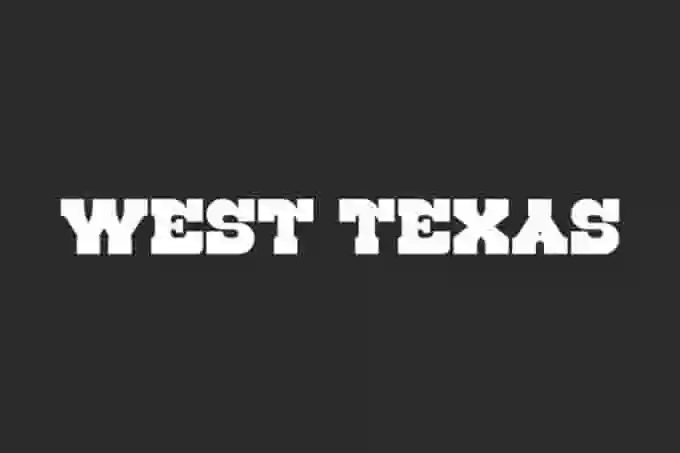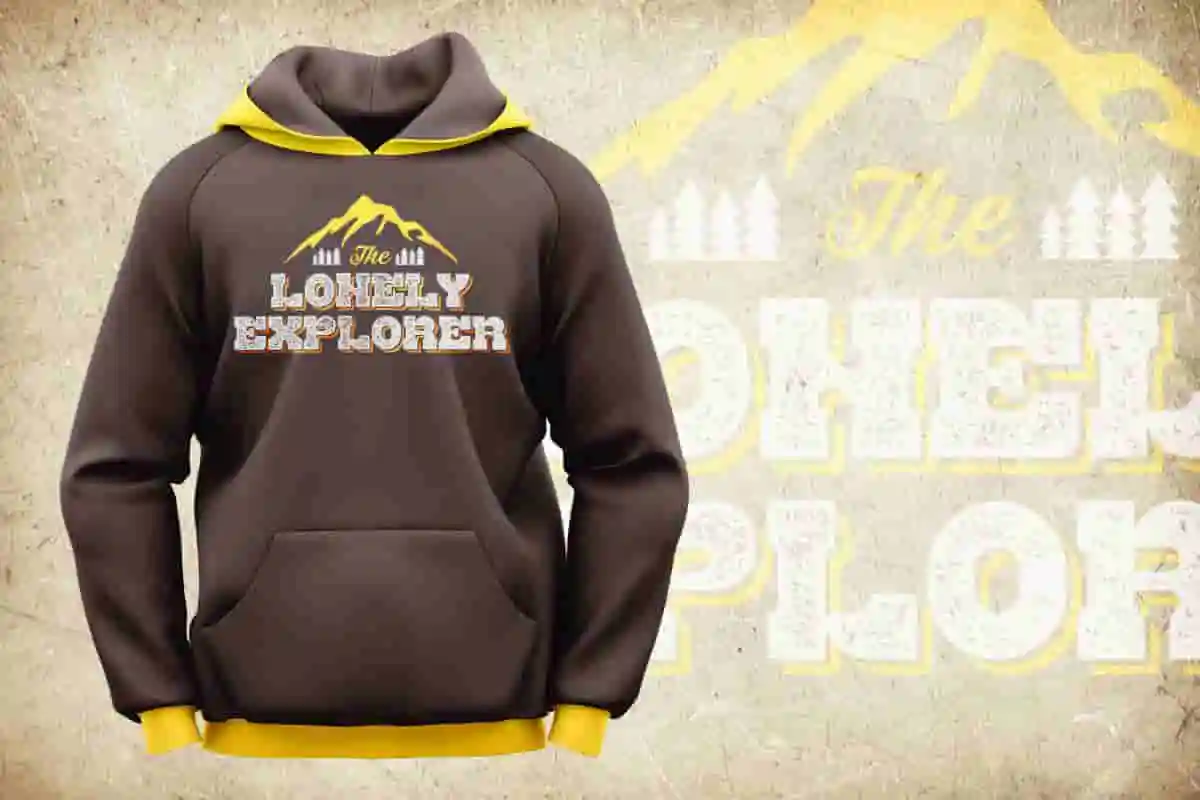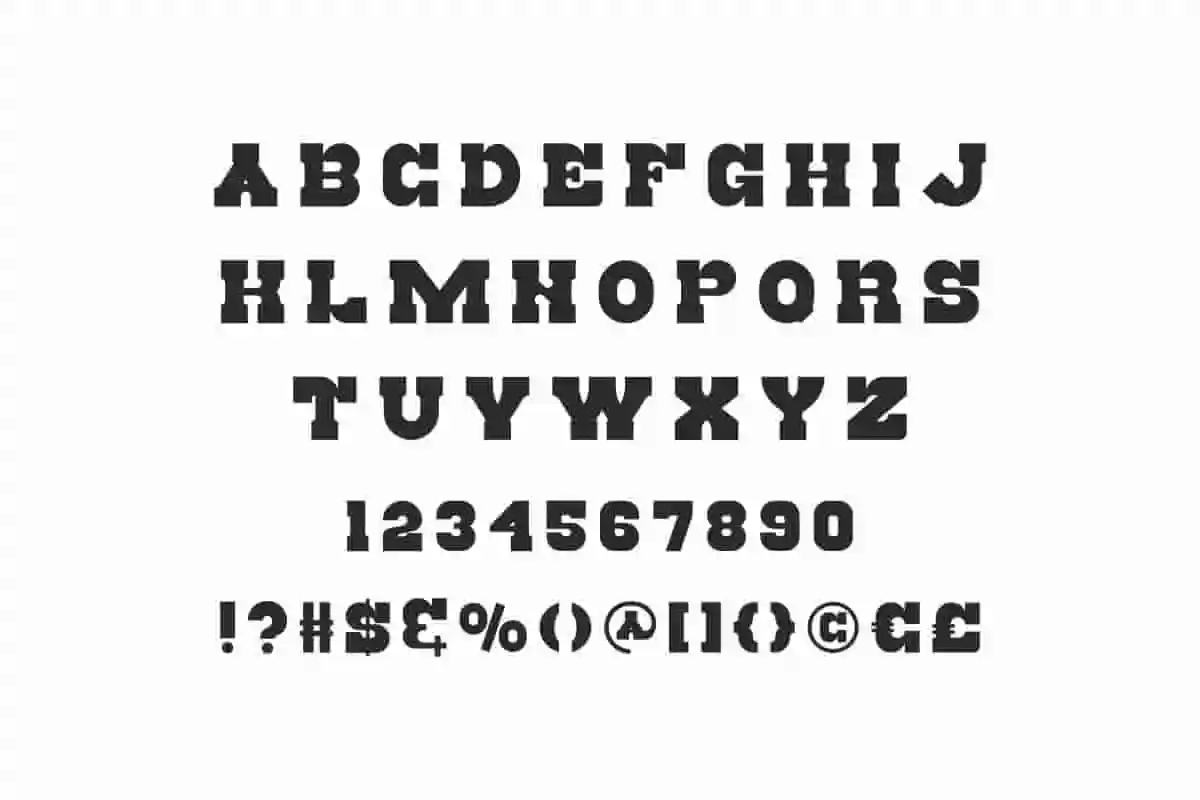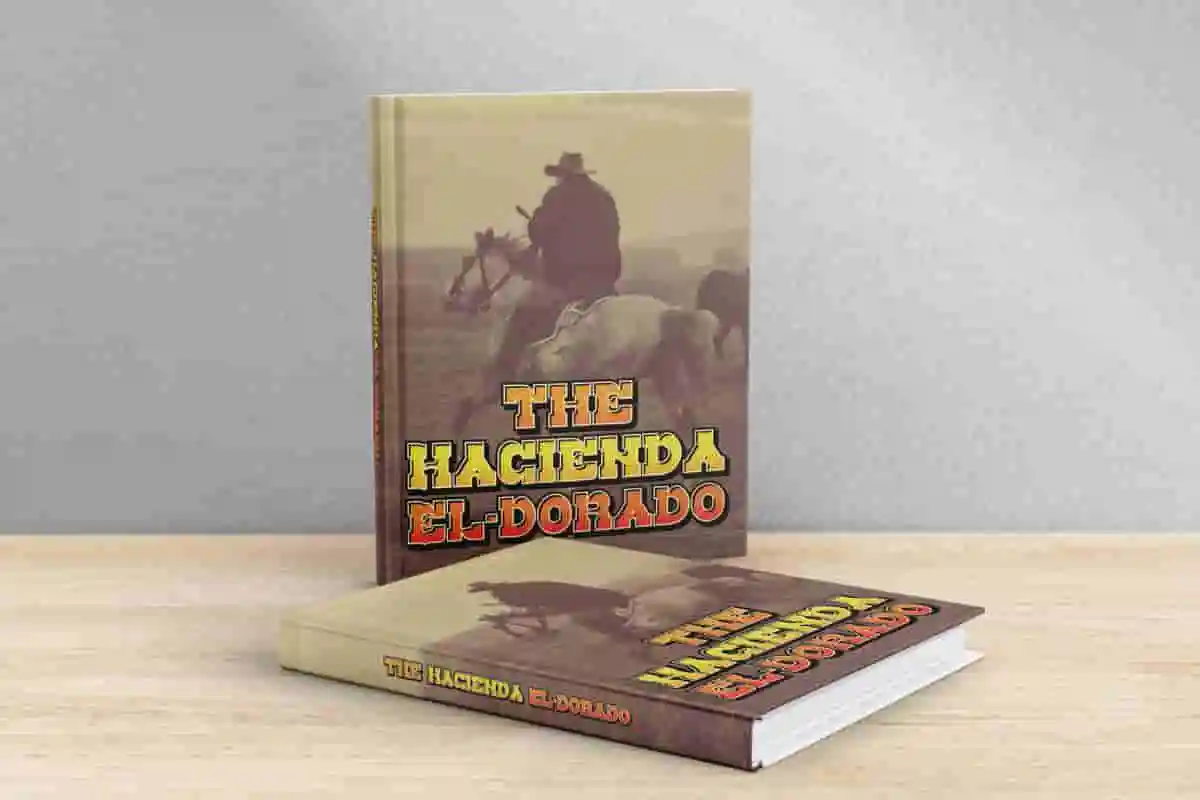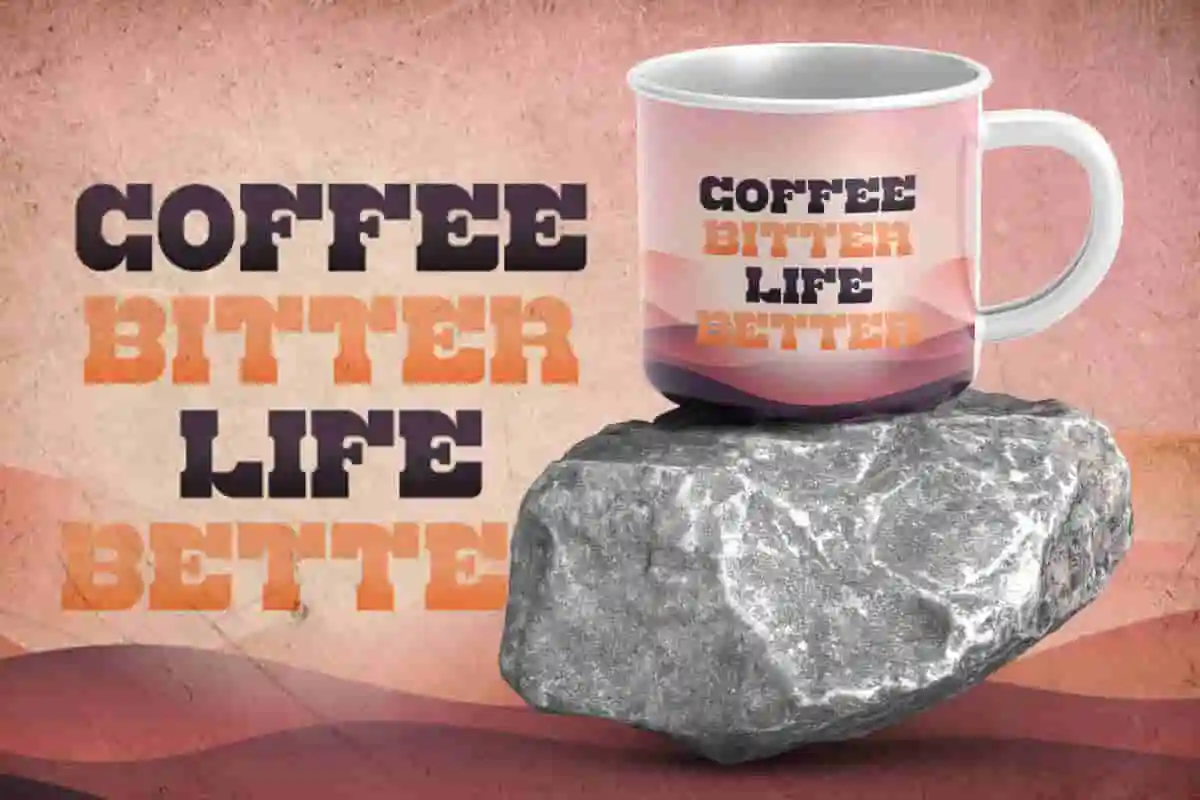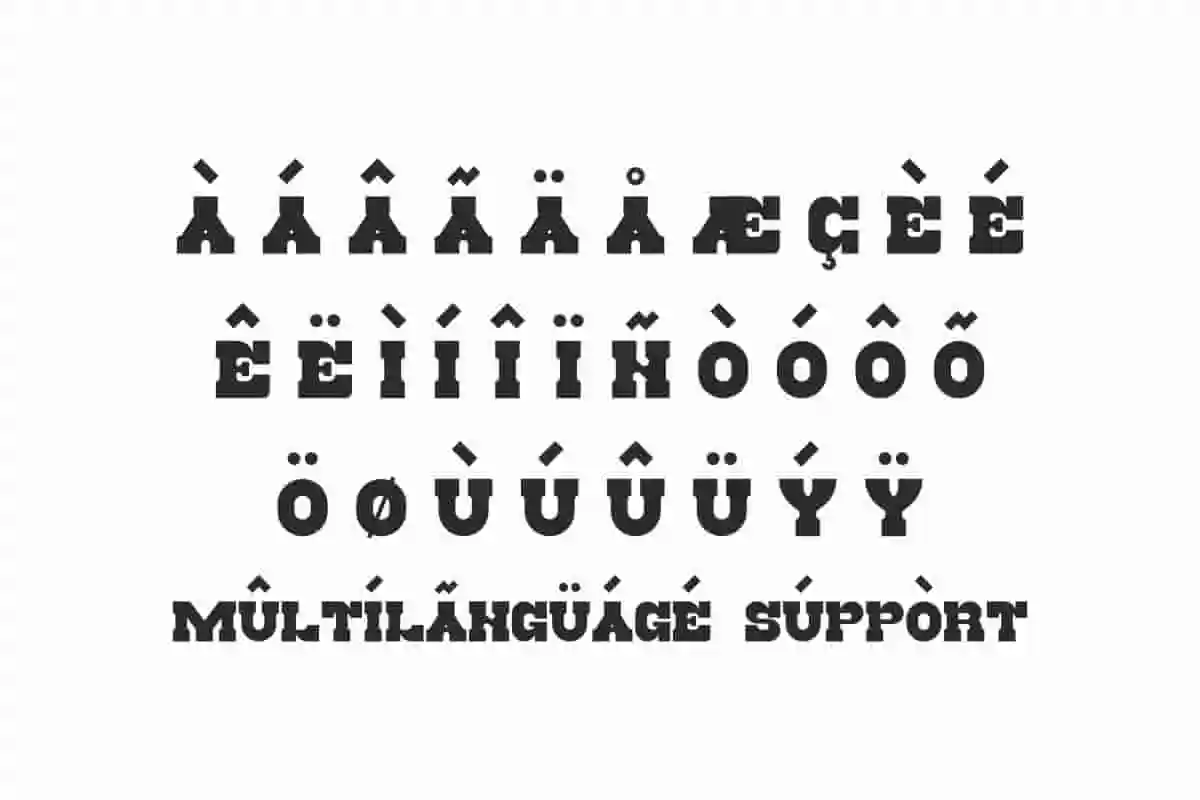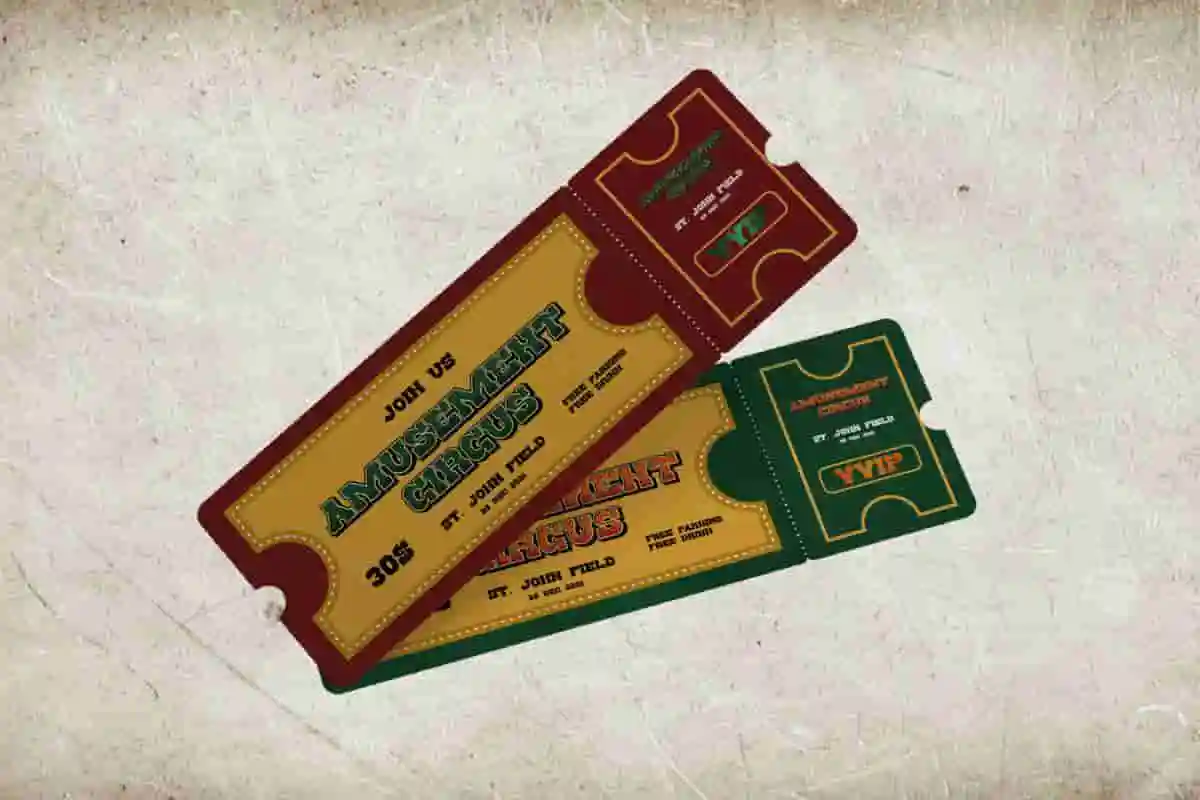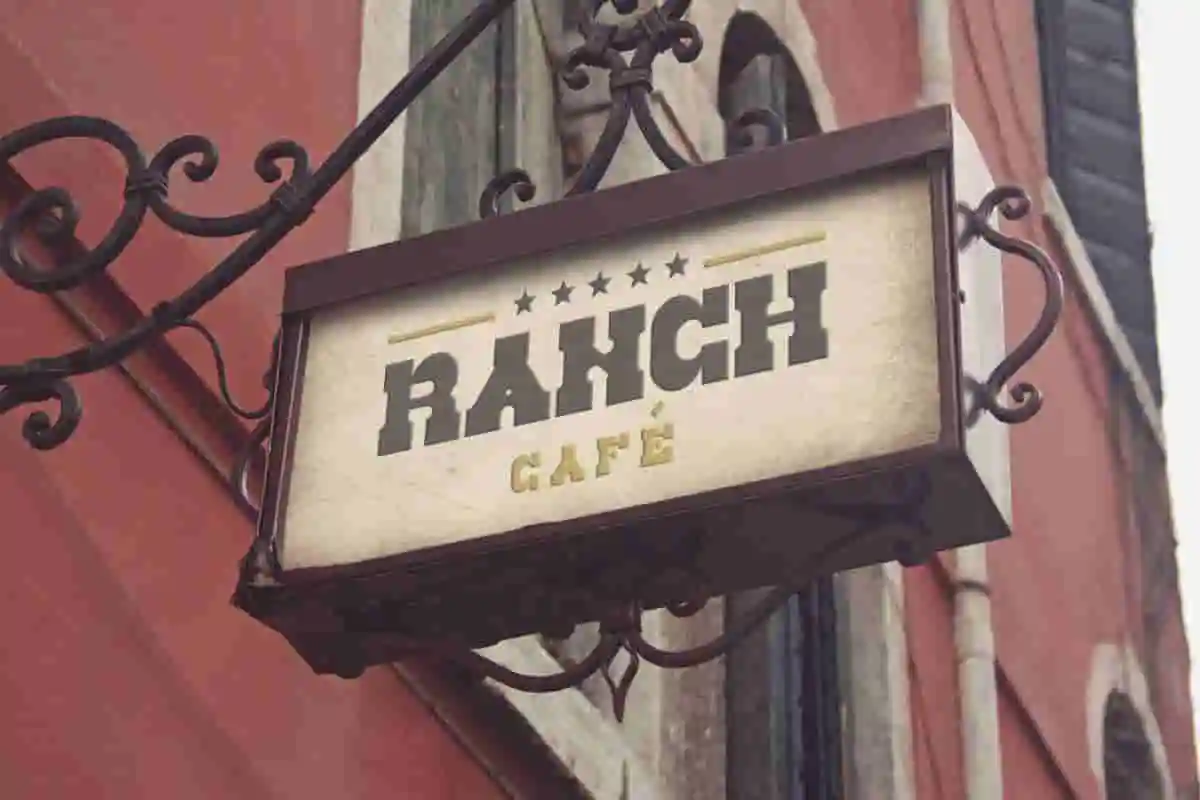
If you’re looking to add a rugged, vintage feel to your next design, West Texas Display Font is exactly what you need. Inspired by the bold spirit of the American West, this handcrafted typeface delivers striking impact and timeless charm.
West Texas Font is a display font with western classic era style, inspired American sheriff. The font has antique style that bring old vintage classic vibes with allcaps letters and still easy to read. It will be amazing any project : games, movie tittle, comic, cartoon, fashion, festival, labels and many more
West Texas Font are inspired from its roots in ancient capitals, and became widely used with the advent of the printing press. Best used as a display for headlines, tittles and smooth curves give any project an extra touch of strike. We make mornings better we make the nights longer.